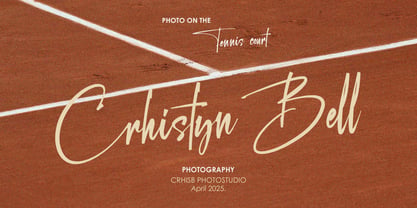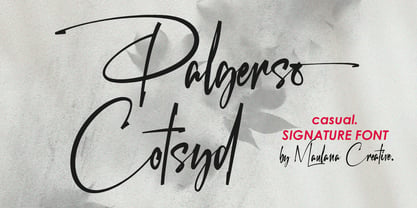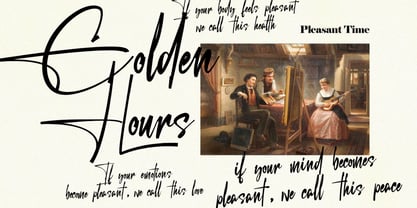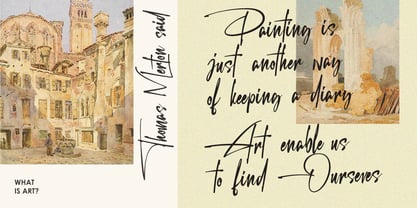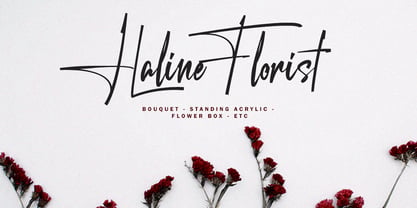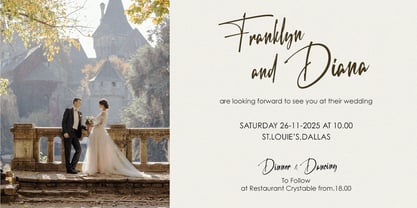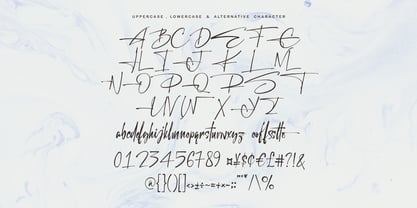
MC Palgerso Cotsyd
por Maulana Creative
A família de fontes MC Palgerso Cotsyd foi desenhada por Gilang Maulana e publicada pela Maulana Creative. MC Palgerso Cotsyd contém 1 estilos. Saiba mais sobre esta família
Palgerso Cotsyd casual signature script handwritten font with some flourist, clean and fun character. It has opentype features of ligatures and alternates character, to give you an extra creative work. Palgerso Cotsyd script font support multilingual more than 100+ language. This font is good for logo design, Social media, Movie Titles, Books Titles, a short text even a long text letter and good for your secondary text font with sans or serif. Make a stunning work with Palgerso Cotsyd casual signature script handwritten font.
Designers: Gilang Maulana
Fundição: Maulana Creative